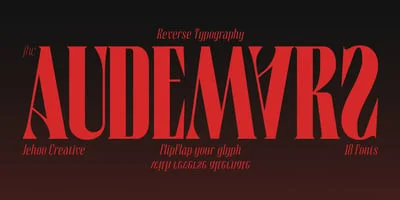
JHC Audemars Font
JHC Audemars Font is perfect for luxury Swiss timepiece branding, premium watchmaking company logos, high-end jewelry packaging, exclusive horological publications, sophisticated watch collector materials, luxury craftsmanship showcases, precision engineering presentations, elite timepiece marketing, distinguished Swiss heritage projects, and prestigious mechanical arts communications that require horological excellence and Swiss sophistication.
This font is exciting because it embodies the meticulous precision and artistic excellence of Swiss watchmaking tradition with letterforms that reflect the same attention to detail and craftsmanship found in the world's finest mechanical timepieces. JHC Audemars Font features refined proportions and precise character details that capture the essence of horological mastery while maintaining the sophisticated elegance essential for luxury timepiece branding and premium craftsmanship communications.
For luxury timepiece and Swiss craftsmanship design projects, JHC Audemars Font delivers unmatched horological sophistication and Swiss excellence. The font's precise letterforms and watchmaking character make it perfect for luxury watch brands, Swiss manufacturers, and premium craftsmanship companies seeking to communicate precision, heritage, and mechanical artistry. Its sophisticated design appeals to collectors and connoisseurs who appreciate Swiss engineering excellence and horological tradition. The character set includes Swiss symbols and precision markers that reflect watchmaking industry standards. Professional designers appreciate its ability to convey both technical mastery and luxury sophistication while maintaining excellent readability across luxury timepiece marketing, Swiss heritage materials, and premium craftsmanship communications, making it essential for brands that want to project the precision excellence and Swiss sophistication that defines world-class mechanical artistry and horological mastery.